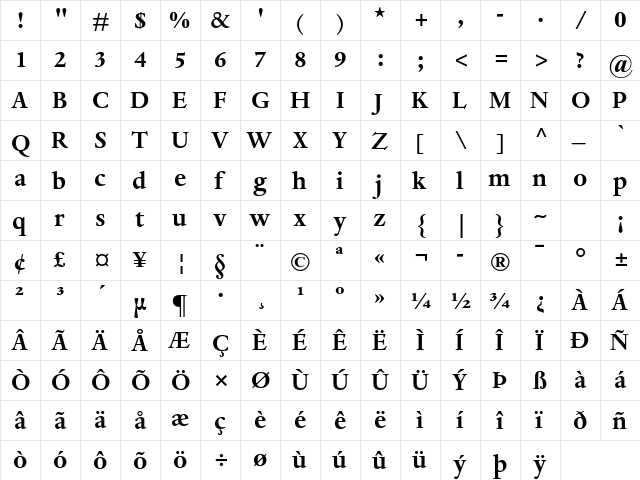
Dante eText Bold
| Foundry | Monotype Imaging Inc. |
| Designer | Monotype Design Team |
Design Context for Dante eText Typeface
Dante eText takes a measured approach to typography — its balanced proportions and neutral character make it a reliable workhorse for both digital and print work. Its bold stroke weight gives it real presence on the page.